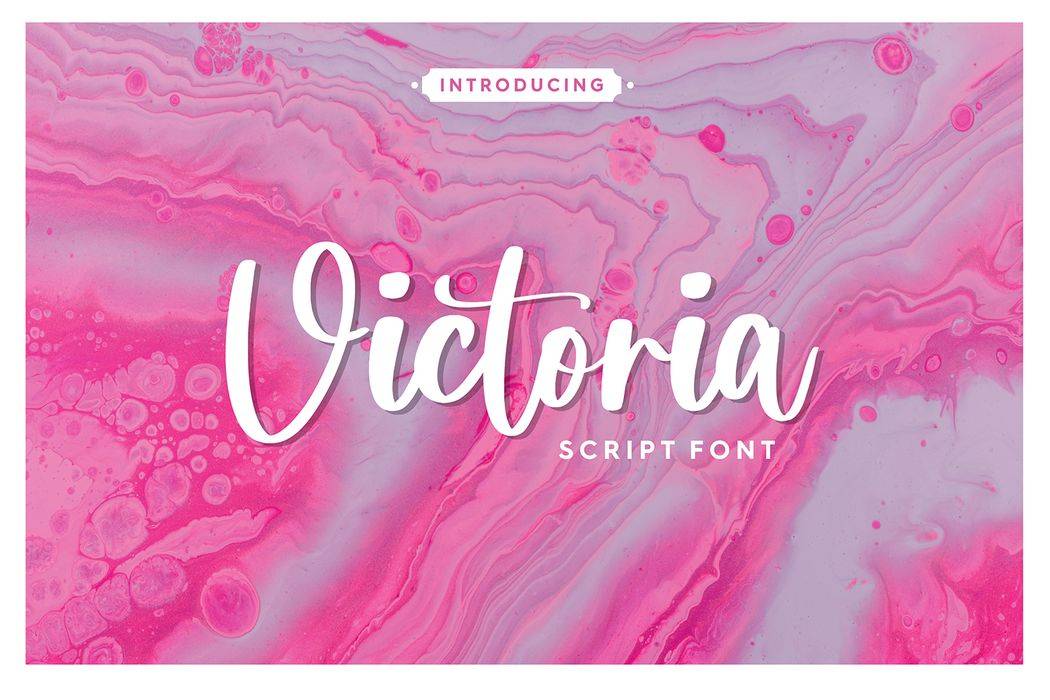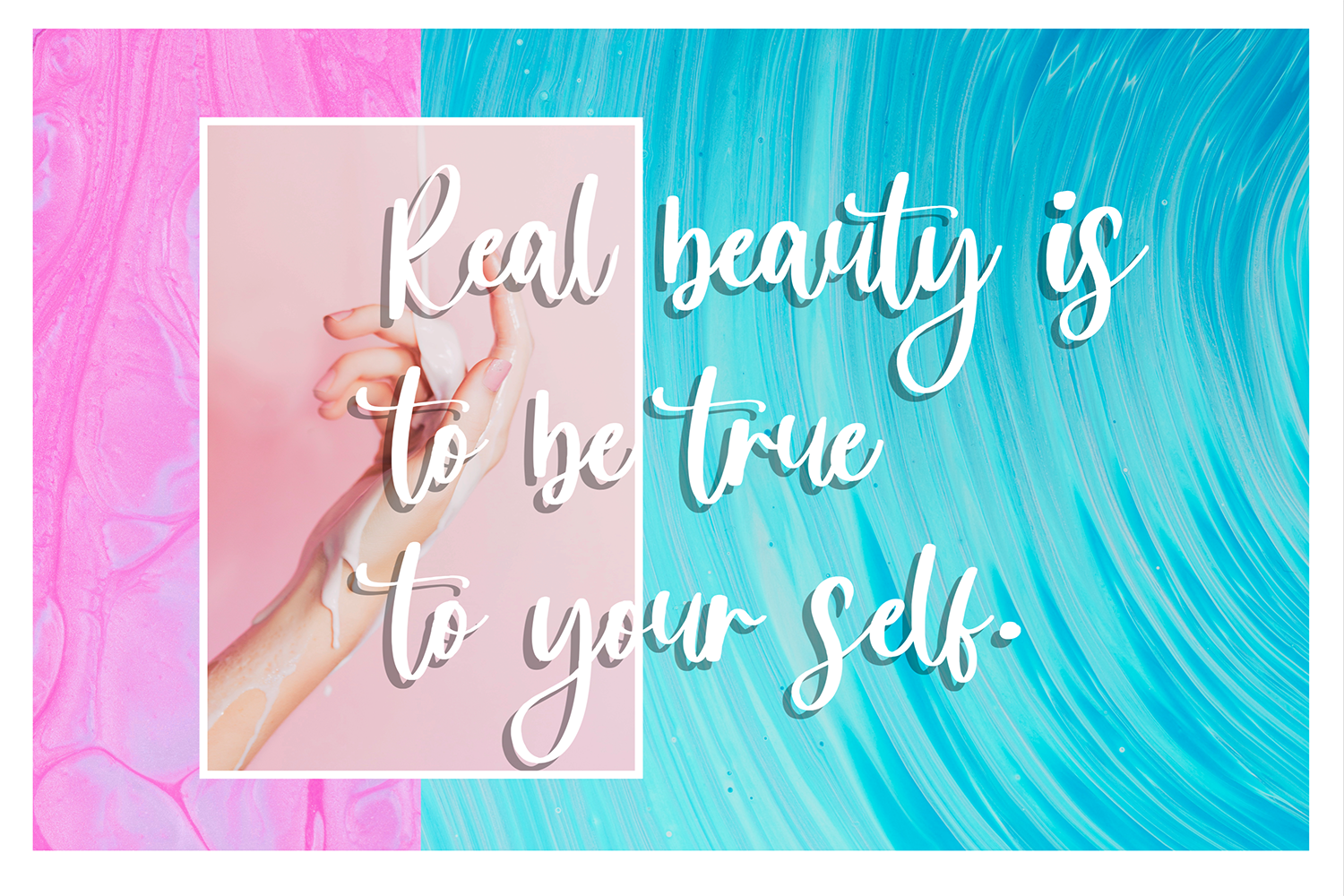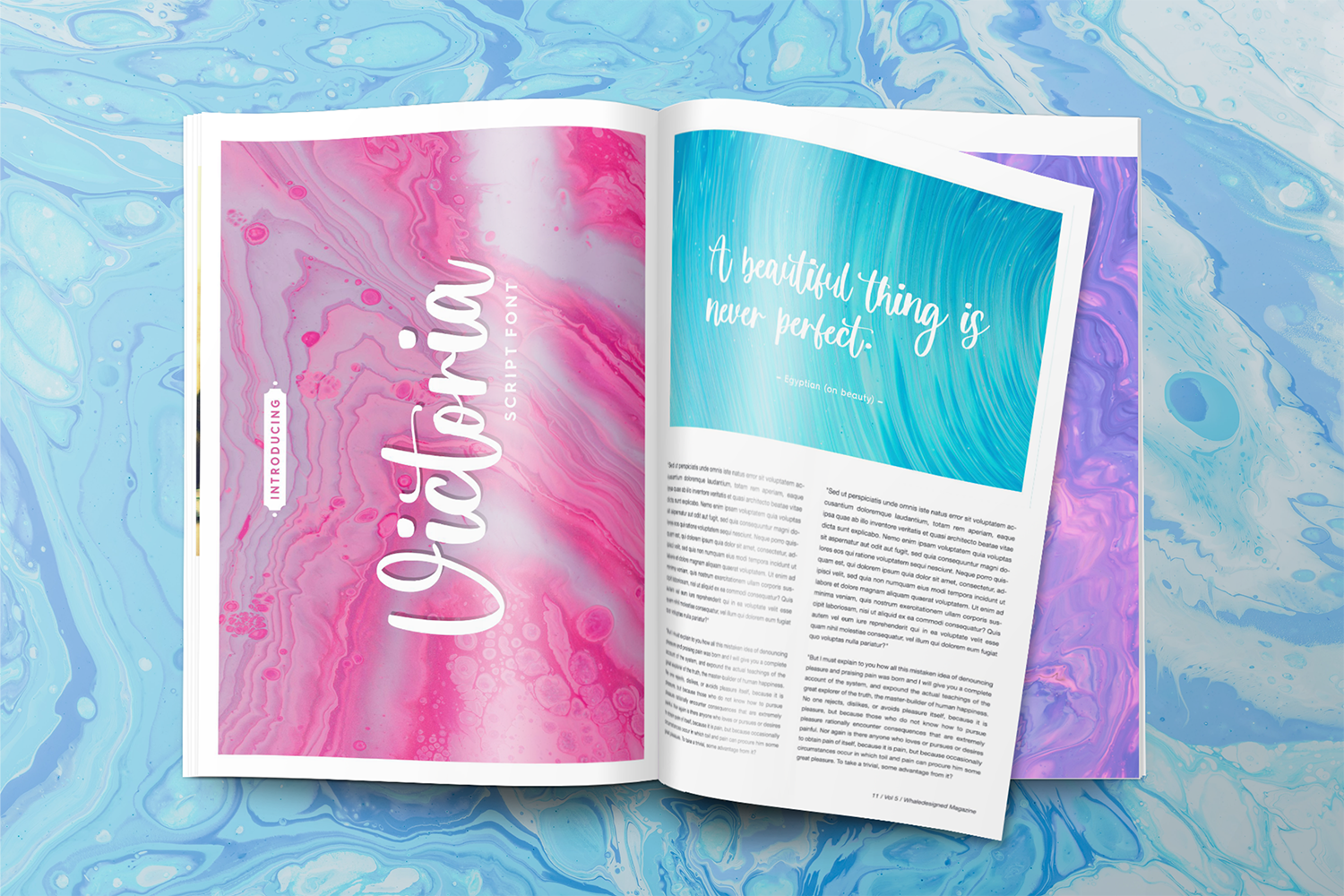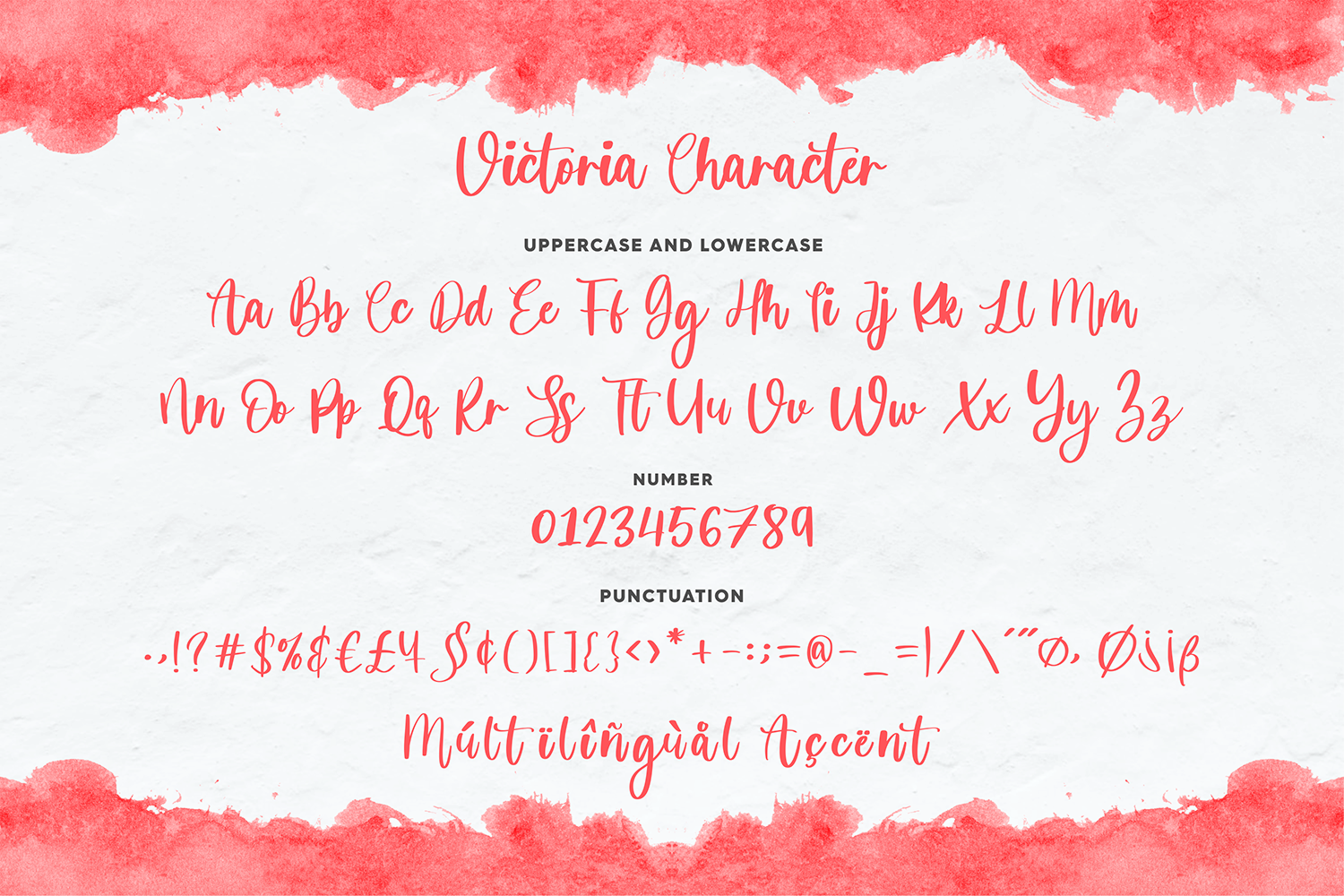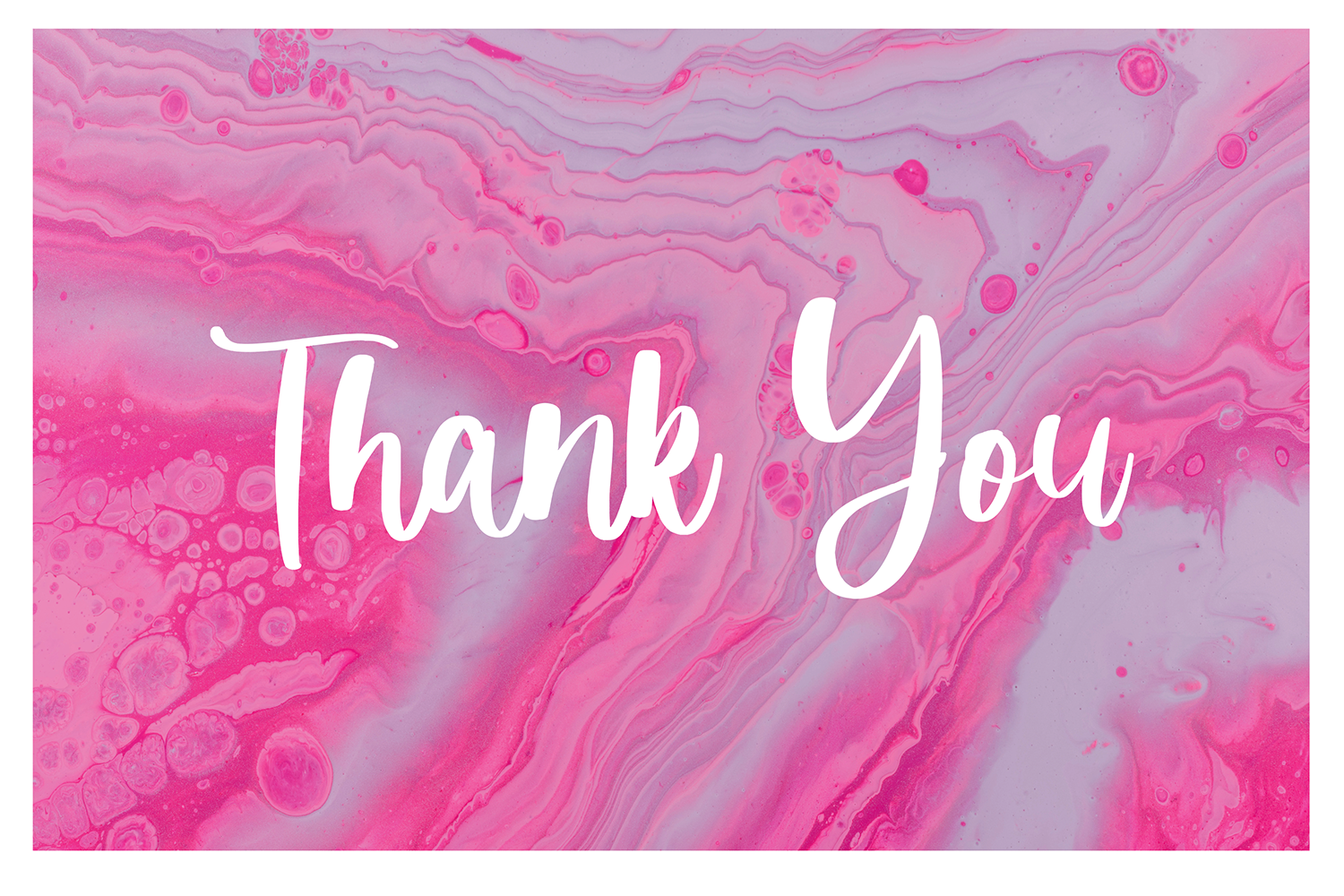
Victoria Script Font is a lively and elegant handwritten script with smooth, flowing letterforms and a moderate contrast in stroke weight. Its stylish, casual feel with tall, slightly condensed characters makes it perfect for creative branding, invitations, and feminine or artistic designs. This font shines in settings that need a personal, approachable touch while maintaining sophistication.
Victoria Script Font
About Victoria Script Font
| Designer | Balpirick 2020 |